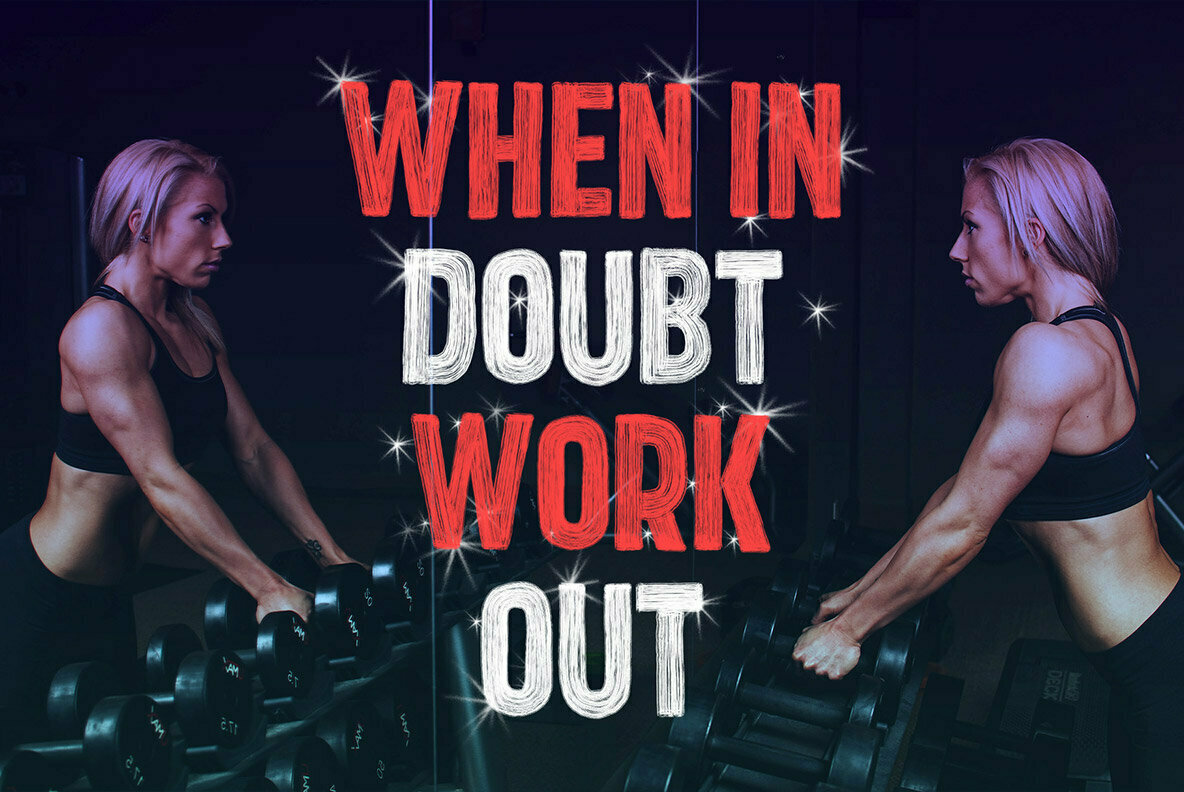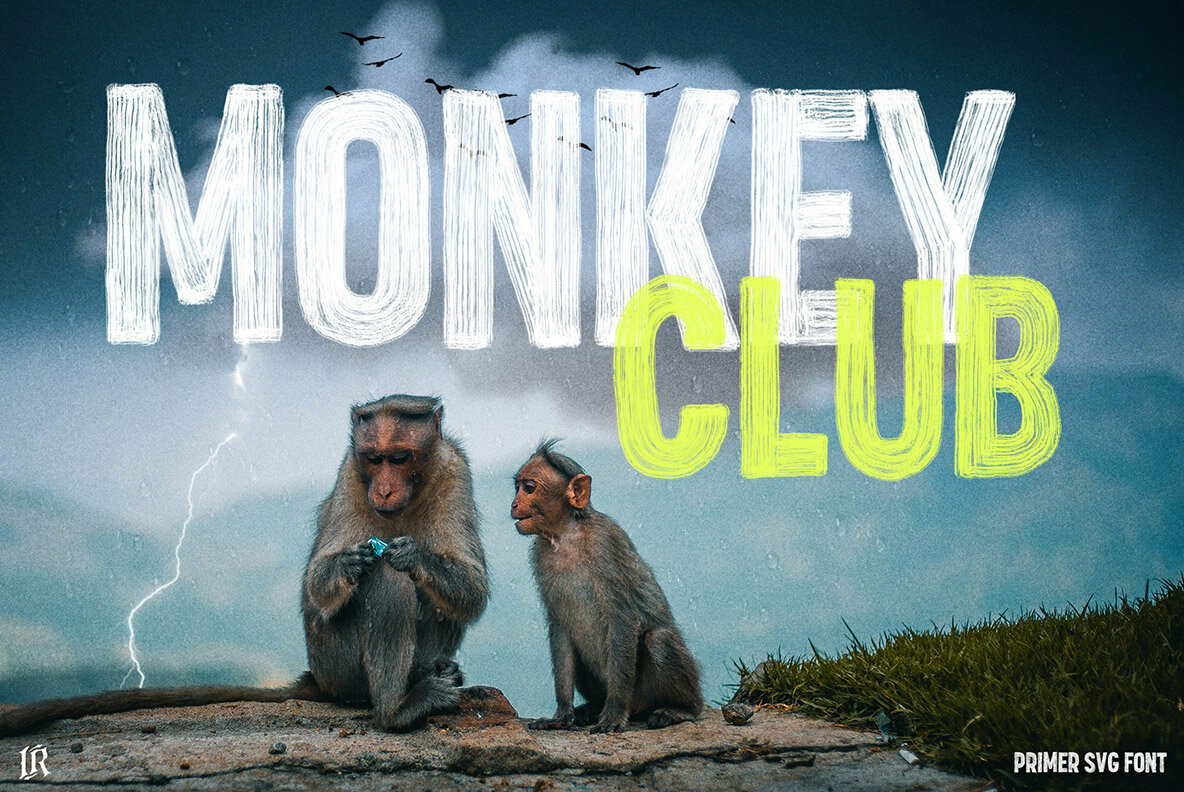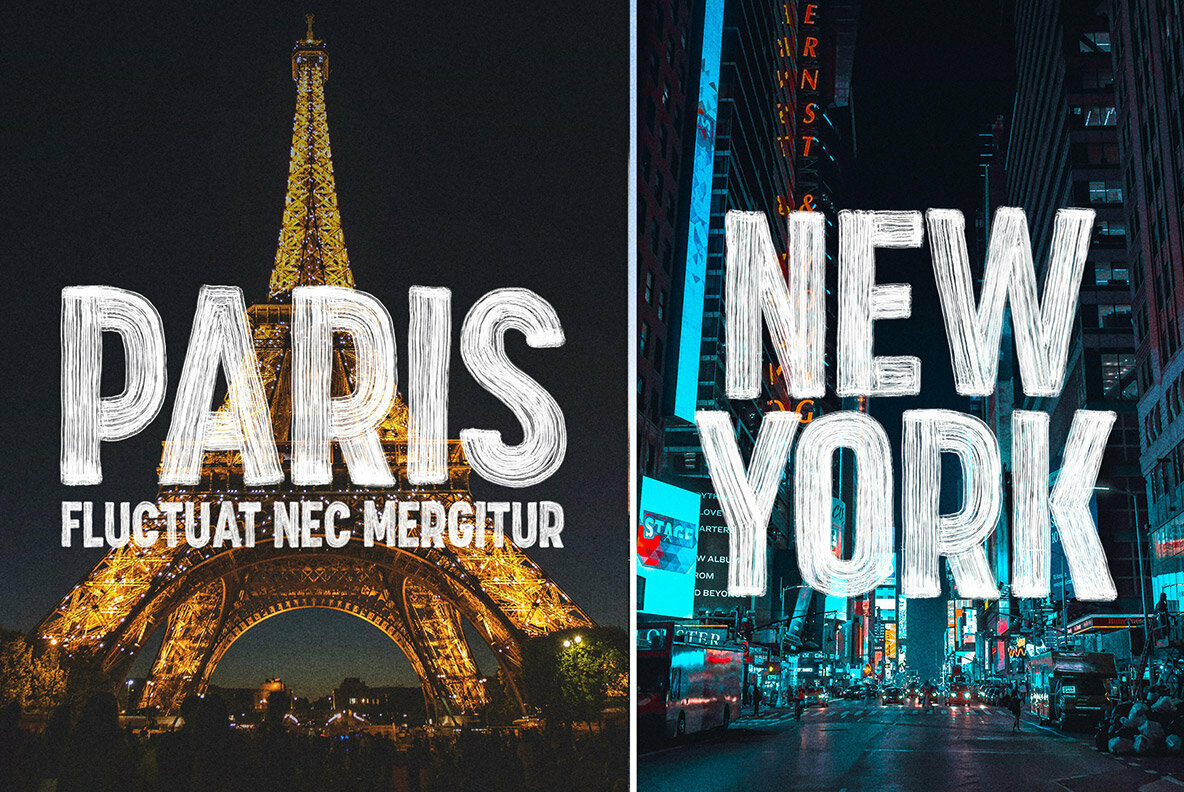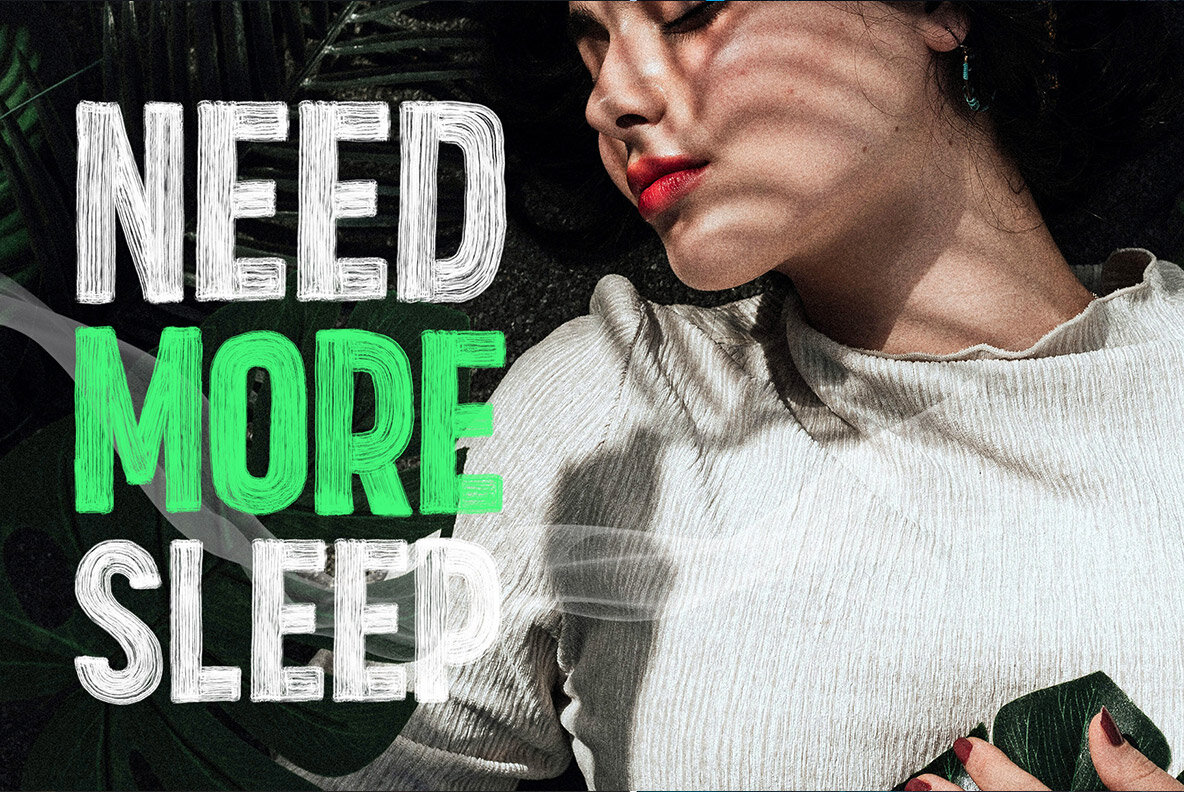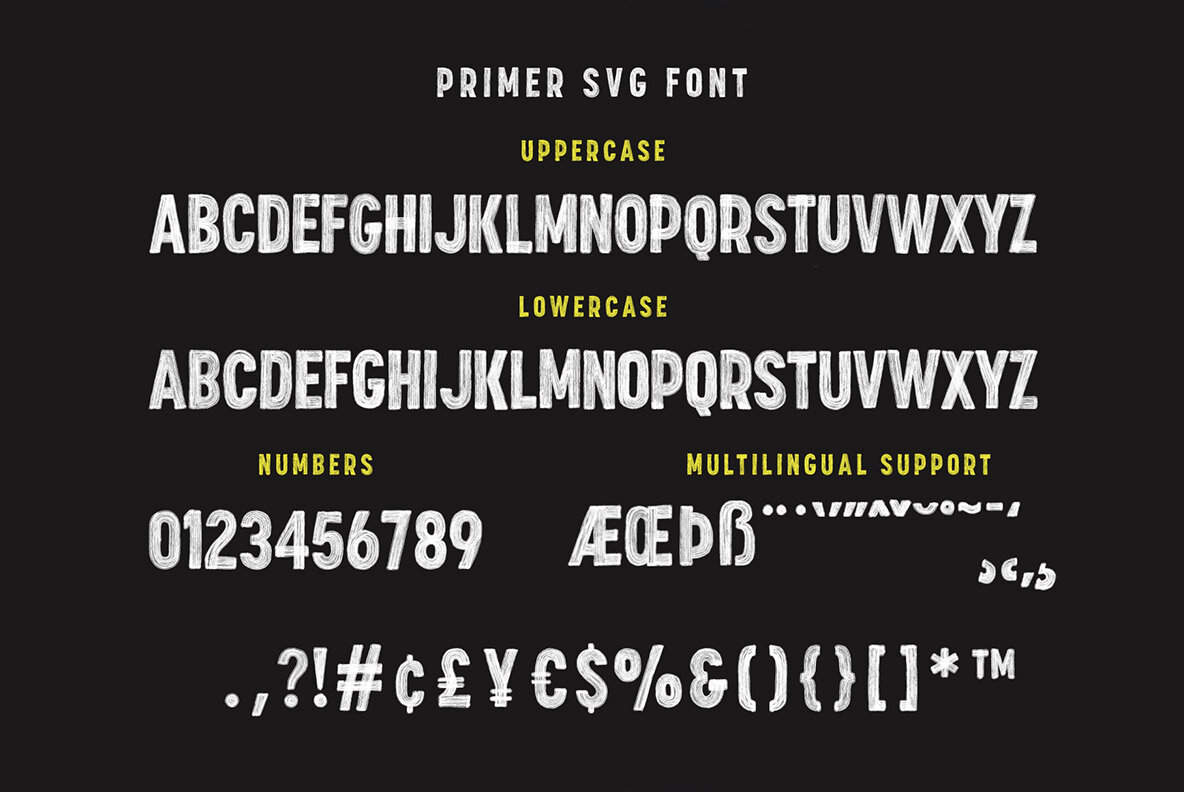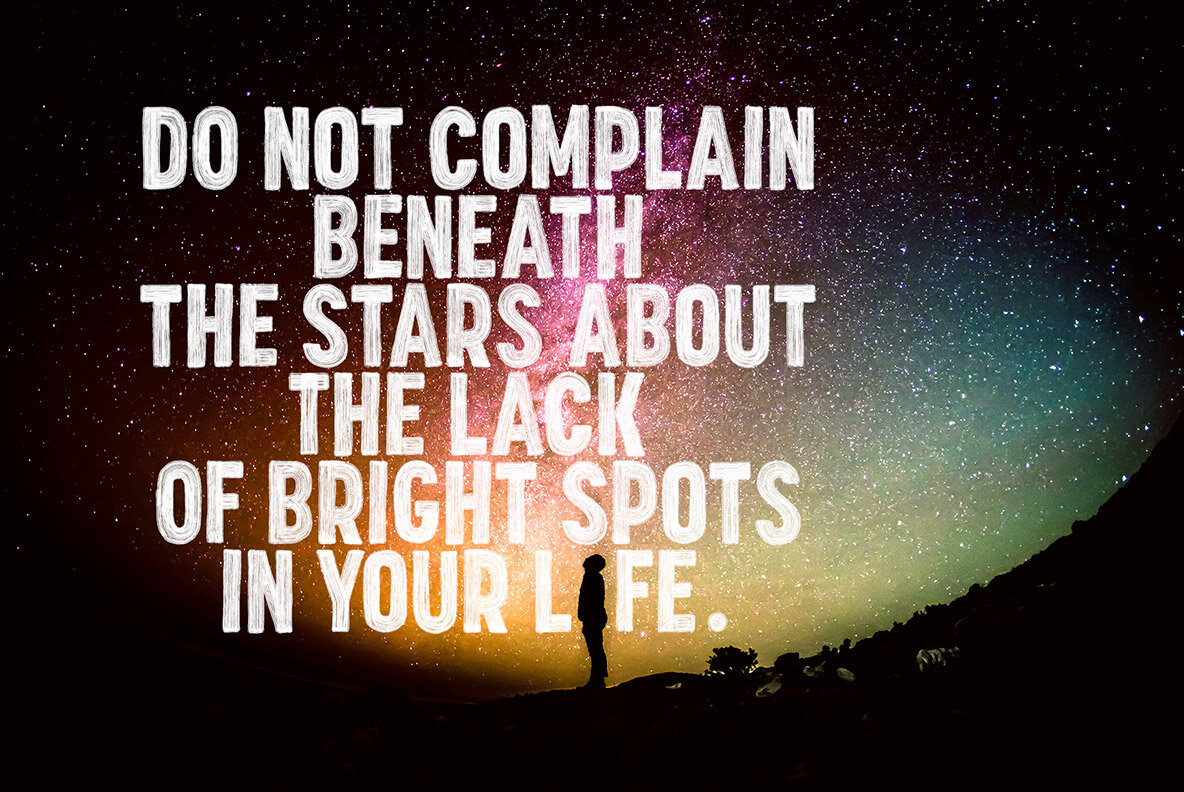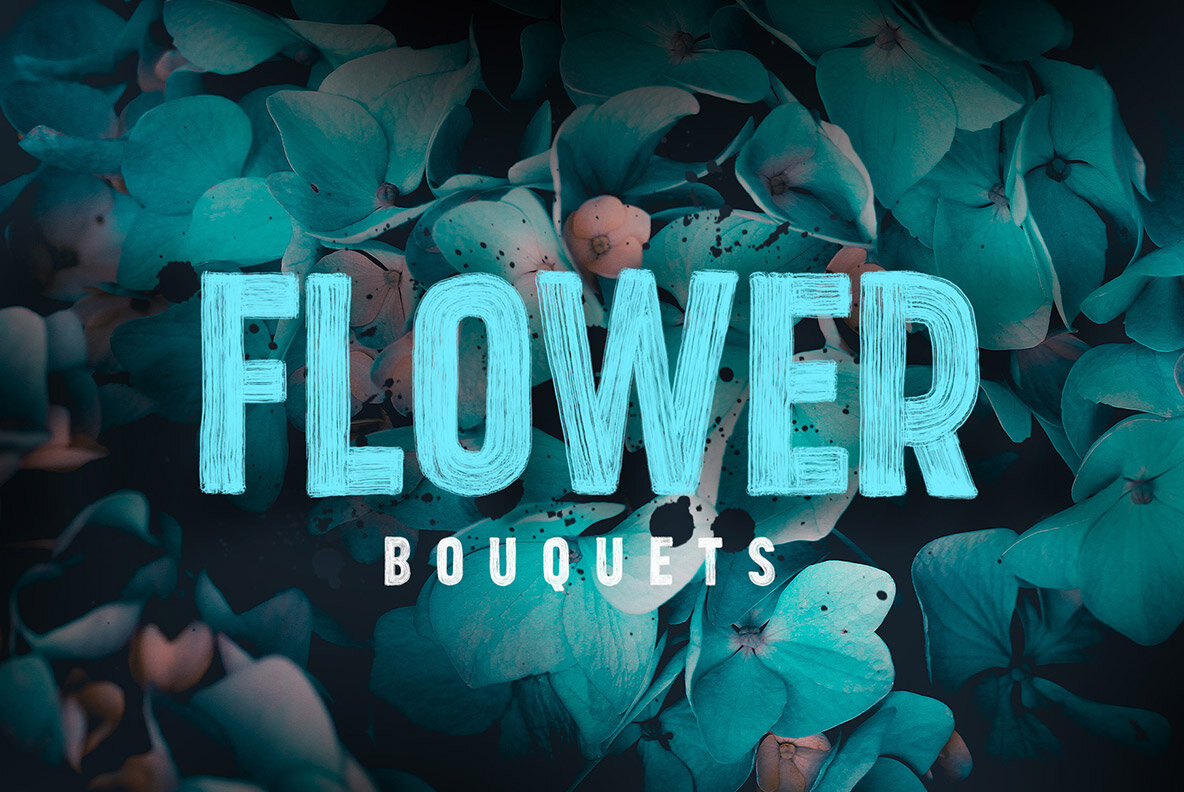
Primer SVG Font
Primer SVG font preserves all the high definition detail of the original handwritten letters. Using OpenType-SVG technology it truly looks realistic. The OpenType-SVG format requires Photoshop CC 2017 or Illustrator CC 2018 (or newer). Regular OTF format is also included.
- Primer SVG Font A high definition OpenSVG brush font with realistic texture (You need to be using Photoshop CC 2017.1.1 or later)